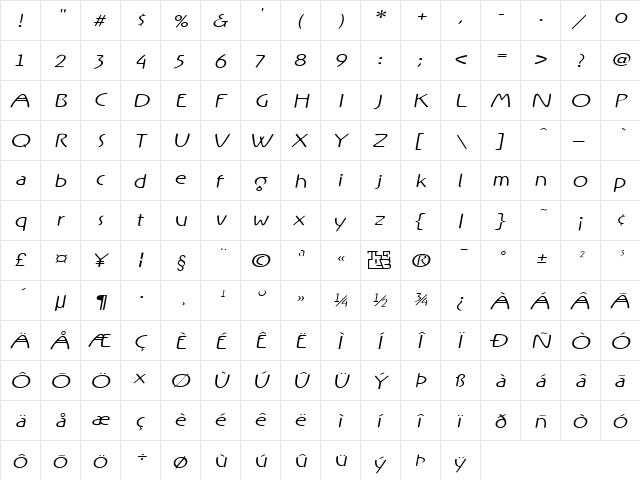
Rx-OneFive Regular
Design Context for Rx-OneFive Typeface
Rx-OneFive is a composed and adaptable typeface that performs quietly and consistently across a wide range of design contexts.